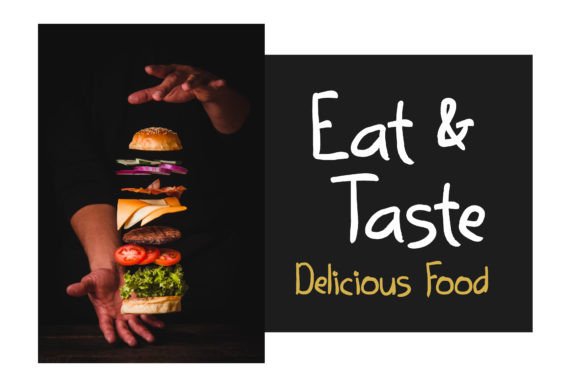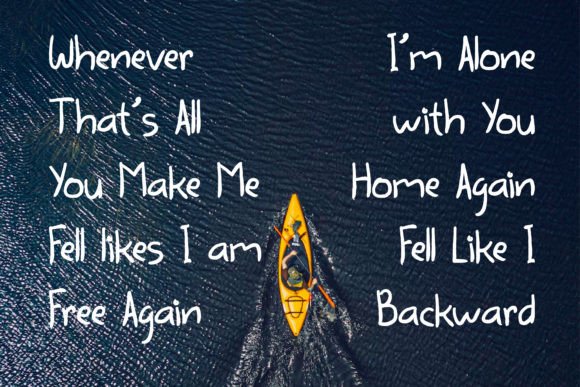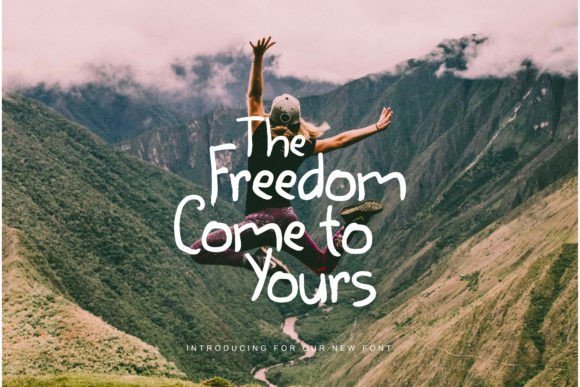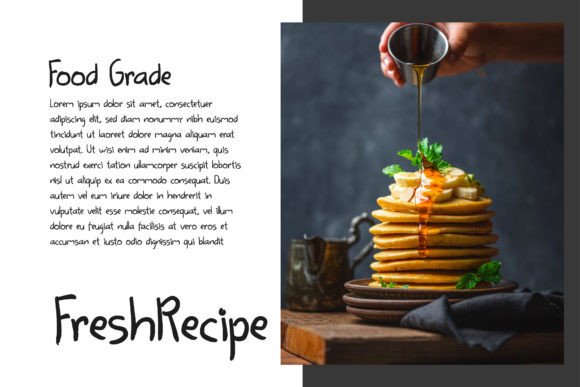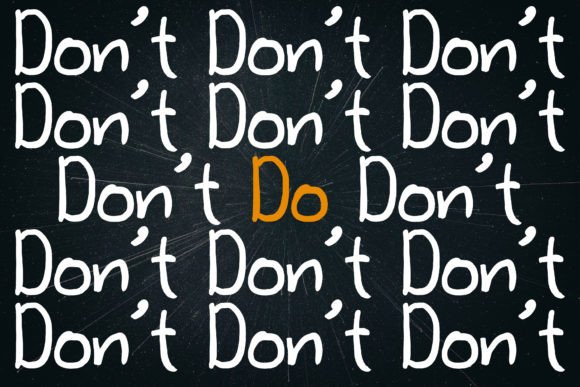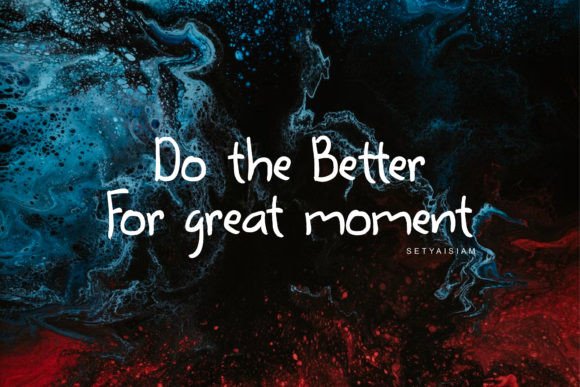
Craffeine Font: Elevate Your Designs with a Handwritten Touch
In the world of design, typography plays a crucial role in conveying messages, expressing creativity, and capturing attention. When it comes to adding a personal touch to your designs, a handwritten font can make all the difference. Craffeine Font, a display font based on handwritten characters, is an excellent choice for designers and crafters looking to elevate their work. In this article, we’ll explore the features, benefits, and uses of Craffeine Font, and why it’s a great addition to your design toolkit.
What is Craffeine Font?
Craffeine Font is a display font that boasts a unique, handwritten look. Its characters are carefully crafted to resemble handwriting, giving your designs a personal and authentic feel. This font is perfect for completing your design and looks great for your every work, whether you’re creating a logo, poster, social media graphic, or any other visual project.
Key Features of Craffeine Font
- Handwritten Style: Craffeine Font is based on handwritten characters, making it perfect for designs that require a personal touch.
- Display Font: This font is designed to make a statement, making it ideal for headings, titles, and other display text.
- Unique Character Set: Craffeine Font features a unique character set that includes uppercase and lowercase letters, numbers, and special characters.
- Easily Readable: Despite its handwritten style, Craffeine Font is easily readable, making it suitable for a wide range of design projects.
Benefits of Using Craffeine Font
So, why should you choose Craffeine Font for your design projects? Here are some benefits of using this versatile font:
- Adds a Personal Touch: Craffeine Font’s handwritten style adds a personal touch to your designs, making them more relatable and engaging.
- Versatile: This font is suitable for a wide range of design projects, from logos and posters to social media graphics and presentations.
- High-Quality: This font is designed to deliver high-quality results, with crisp and clear characters that look great on any device.
Use Cases for Craffeine Font
Craffeine Font is a versatile font that can be used in a variety of design projects. Here are some use cases to get you started:
- Logos and Branding: Use Craffeine Font to create a unique and memorable logo that reflects your brand’s personality.
- Posters and Flyers: Add a personal touch to your posters and flyers with Craffeine Font’s handwritten style.
- Social Media Graphics: Use Craffeine Font to create engaging social media graphics that stand out from the crowd.
- Presentations: Add a touch of elegance to your presentations with Craffeine Font’s unique character set.
Tips for Using Craffeine Font
To get the most out of Craffeine Font, here are some tips to keep in mind:
- Use it Sparingly: While Craffeine Font is a beautiful font, it’s best to use it sparingly to avoid overwhelming your design.
- Pair it with Other Fonts: Experiment with pairing Craffeine Font with other fonts to create a unique and visually appealing design.
- Adjust the Size and Color: Adjust the size and color of Craffeine Font to suit your design needs and ensure it stands out.
| Font Name | Craffeine Font |
In conclusion, Craffeine Font is a versatile and beautiful display font that’s perfect for designers and crafters looking to add a personal touch to their work. With its handwritten style, unique character set, and ease of use, Craffeine Font is an excellent choice for a wide range of design projects. Whether you’re creating a logo, poster, social media graphic, or presentation, Craffeine Font is sure to elevate your designs and make them stand out from the crowd.